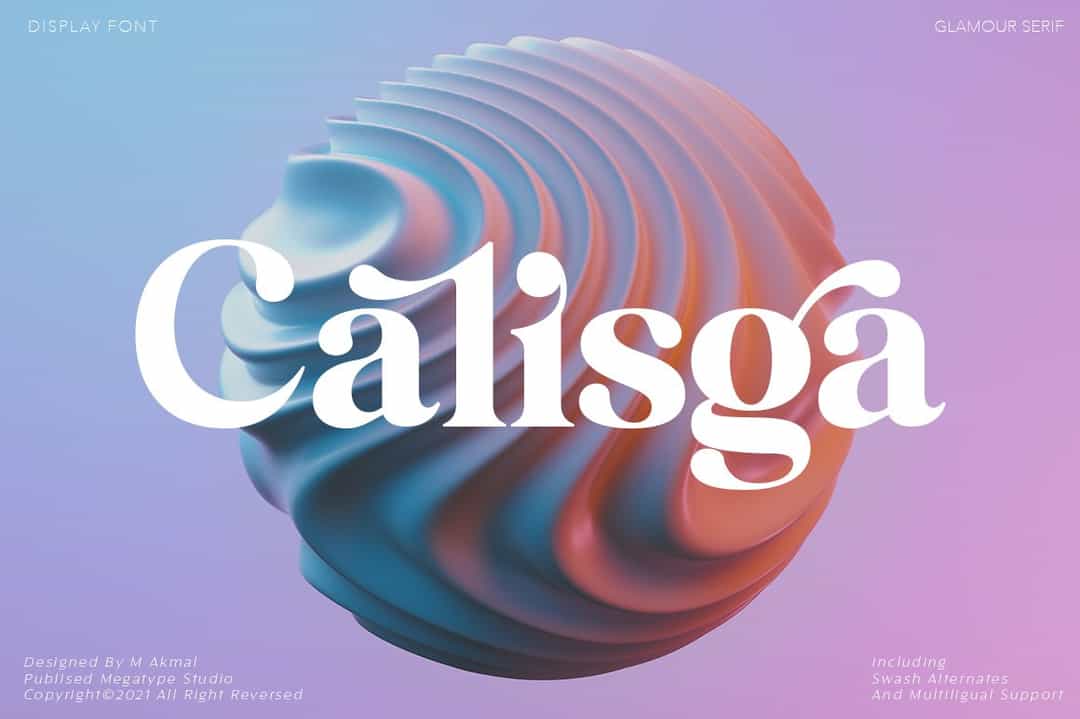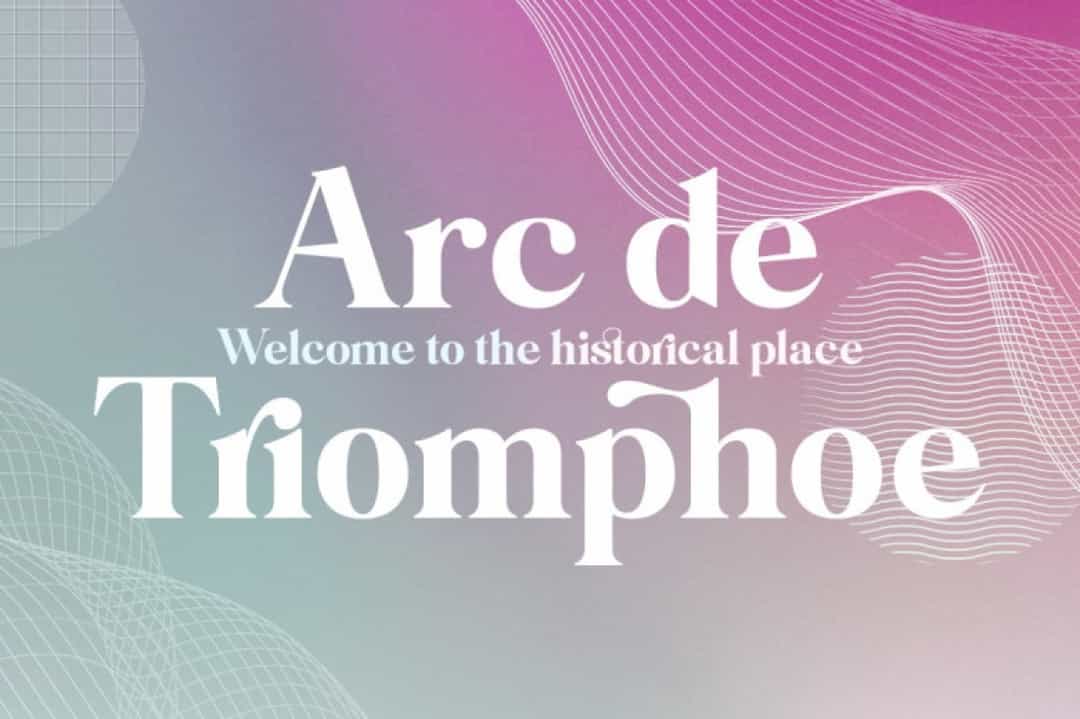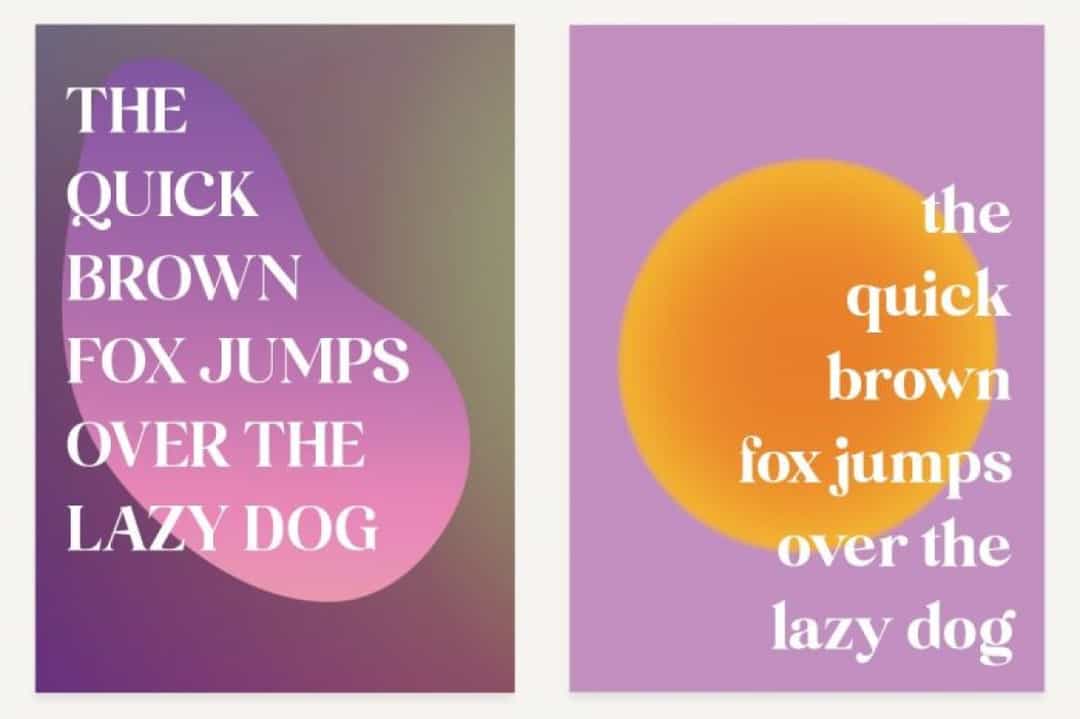
Calisga is a serif font with an elegant, modern, stylish, and fun style that stands out from its peers. This font looks beautiful when displayed at display size while remaining easy to read when set as text size. In addition, Calisga provides plenty of innovative features and options which allow users to create amazing designs using it.